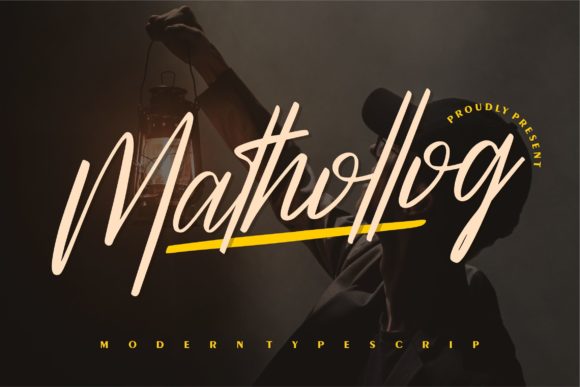
About Mathollog Font
“Mathollog” is an elegant script font that encompasses a contemporary vibe while drawing inspiration from the timeless allure of classic calligraphy. With a balanced and varied design, this font has been thoughtfully crafted to elevate the visual appeal of your projects.
Incorporating elements of classic calligraphy, “Mathollog” strikes a harmonious balance between thickness and delicacy, resulting in a refined and versatile appearance. Its well-crafted form makes it suitable for a wide range of design applications, whether they lean towards a formal or modern aesthetic.
When integrated into your projects, “Mathollog” adds an air of elegance and sophistication. Combining its classic foundation with a contemporary twist, the font seamlessly adapts to different design contexts, ensuring that your creations capture attention and leave a lasting impression.
Ultimately, “Mathollog” transcends being just a font—it serves as a design tool that adds depth and refinement to your work. Its ability to enhance the beauty of your projects while embracing the grace of classic calligraphy ensures that your designs radiate with timeless elegance. With “Mathollog,” your creations gain a touch of enduring charm.